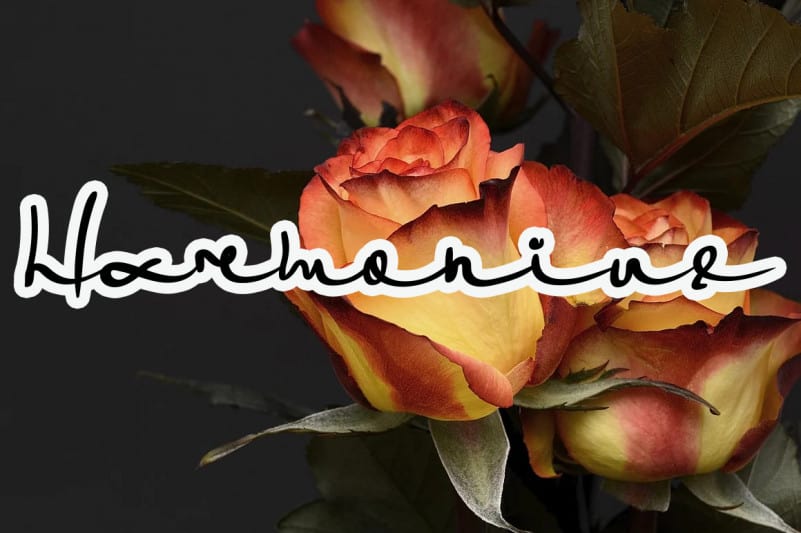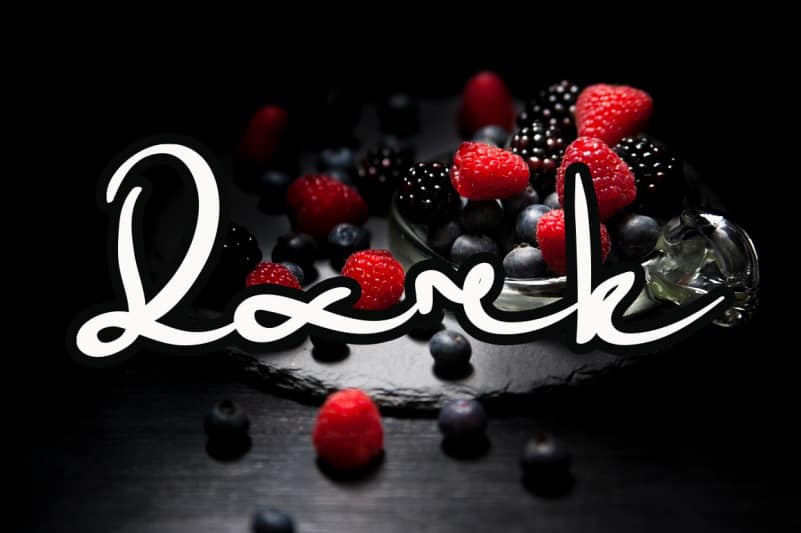
Billion Script Font
Billion Script Font is a stylish and delicate font. It has a clean, thin and smooth vibe and it will be a hit for any design that you want to add it to. No matter the topic, this font will be an incredibly asset to your fonts’ library, as it has the potential to elevate any creation.
Billion Script Font is a very talented product for you to use,
Latest letters that can be used for various products, invitations, wall hangings, weddings, and more.